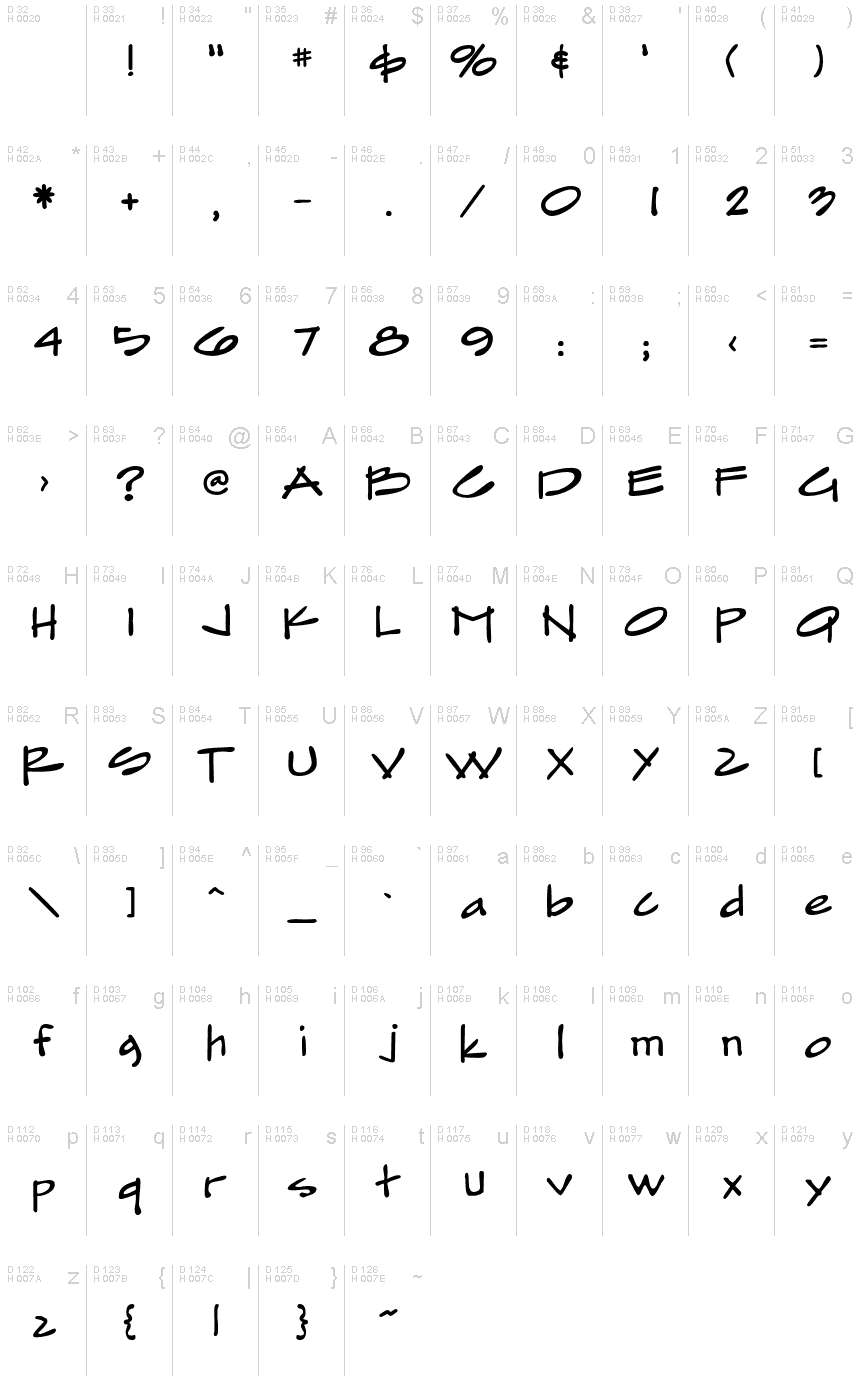
Scribble2
Scribble2 is a font that brings the charm of authentic handwriting to your digital canvas. Crafted by Epiphany Design Studio, this font embodies a semi-light weight with an expanded width, giving your text a breezy and approachable feel. The handwritten style of Scribble2 boasts an aesthetic that is both raw and refined, making it perfect for designs that require a personal touch.
With each stroke revealing a casual elegance, Scribble2 lends itself to a wide array of creative projects. From personalized invitations to branding elements that demand individuality, this font stands out with its distinctive character. The expanded width ensures readability without compromising on style, making it ideal for larger texts where personality is key.
Embrace the unique flair of Scribble2 in your next project and let its stylistic approach elevate your design narrative. Whether you're aiming for whimsy or intimacy, this font will deliver with grace and authenticity.
With each stroke revealing a casual elegance, Scribble2 lends itself to a wide array of creative projects. From personalized invitations to branding elements that demand individuality, this font stands out with its distinctive character. The expanded width ensures readability without compromising on style, making it ideal for larger texts where personality is key.
Embrace the unique flair of Scribble2 in your next project and let its stylistic approach elevate your design narrative. Whether you're aiming for whimsy or intimacy, this font will deliver with grace and authenticity.